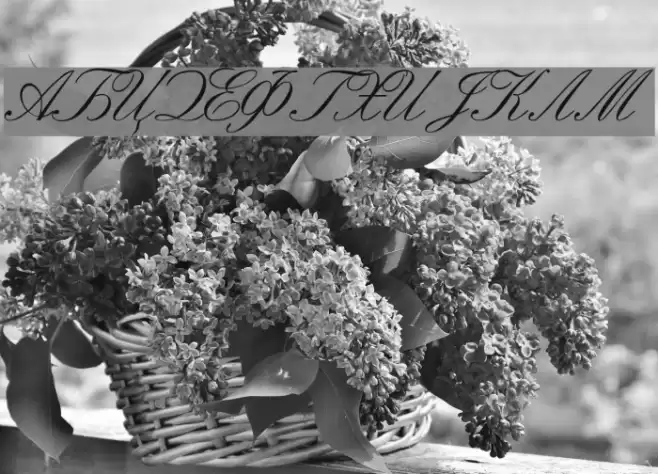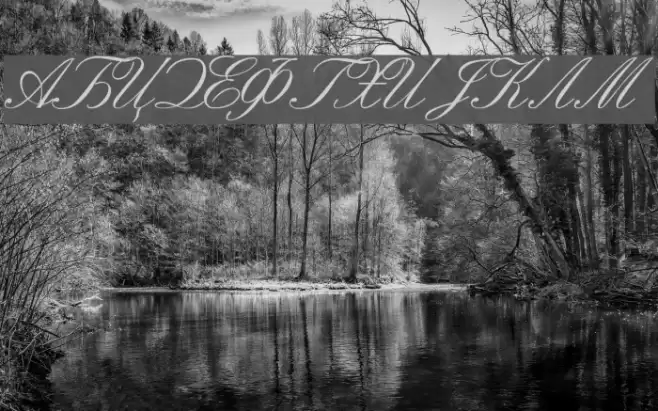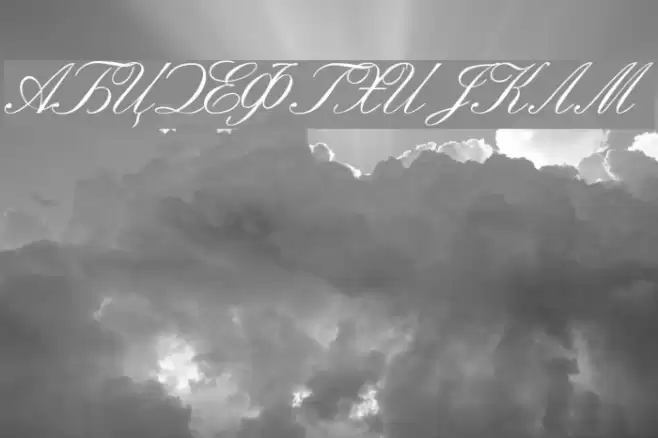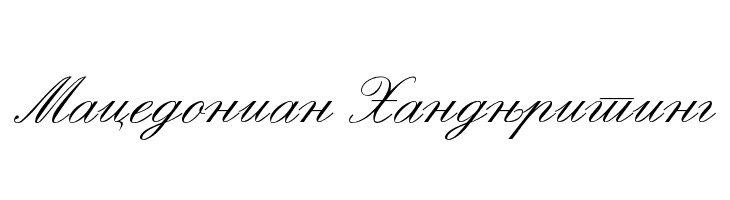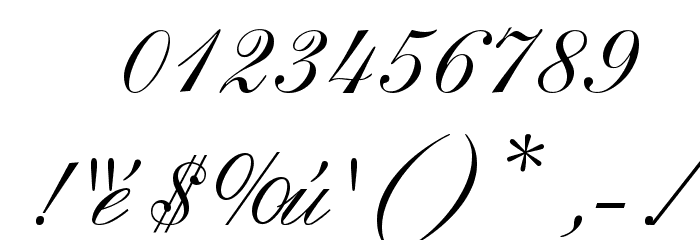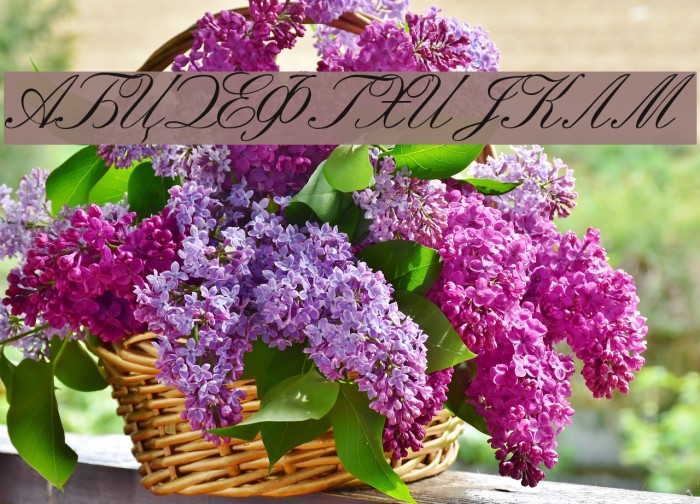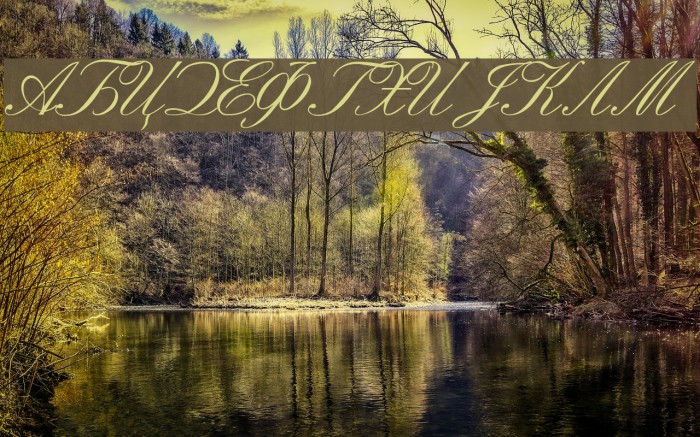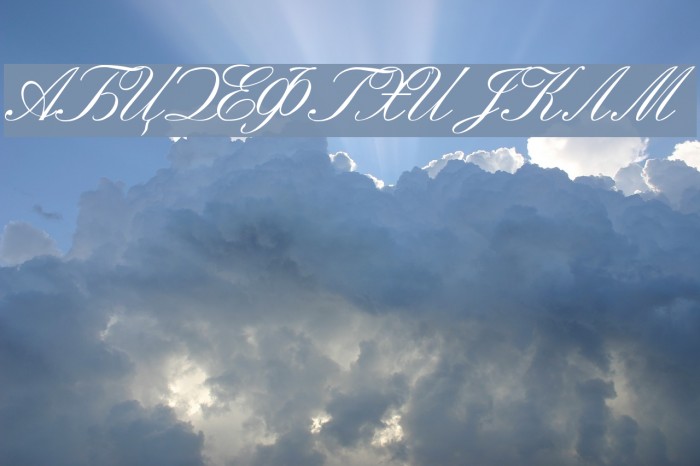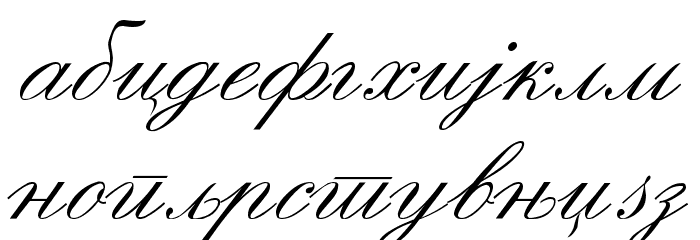
Macedonian Handwriting
This elegant script font features flowing, cursive letters with a classic and sophisticated appearance. The uppercase letters are beautifully ornate, with intricate loops and swirls that add a touch of elegance. The lowercase letters maintain a consistent style, offering a seamless transition between characters. The numerals are designed with the same graceful curves, ensuring uniformity across all elements. Special characters are thoughtfully crafted, maintaining the font's overall aesthetic. This font is perfect for projects that require a touch of class and refinement.
An elegant script font with flowing, cursive letters and ornate details.
- Proposed Projects: Ideal for wedding invitations, formal event programs, elegant branding, and sophisticated stationery.
- Category: Script
- Contrast: High
- Overall Style: Classic
- Use Case: Logos, Invitations, Decorative text